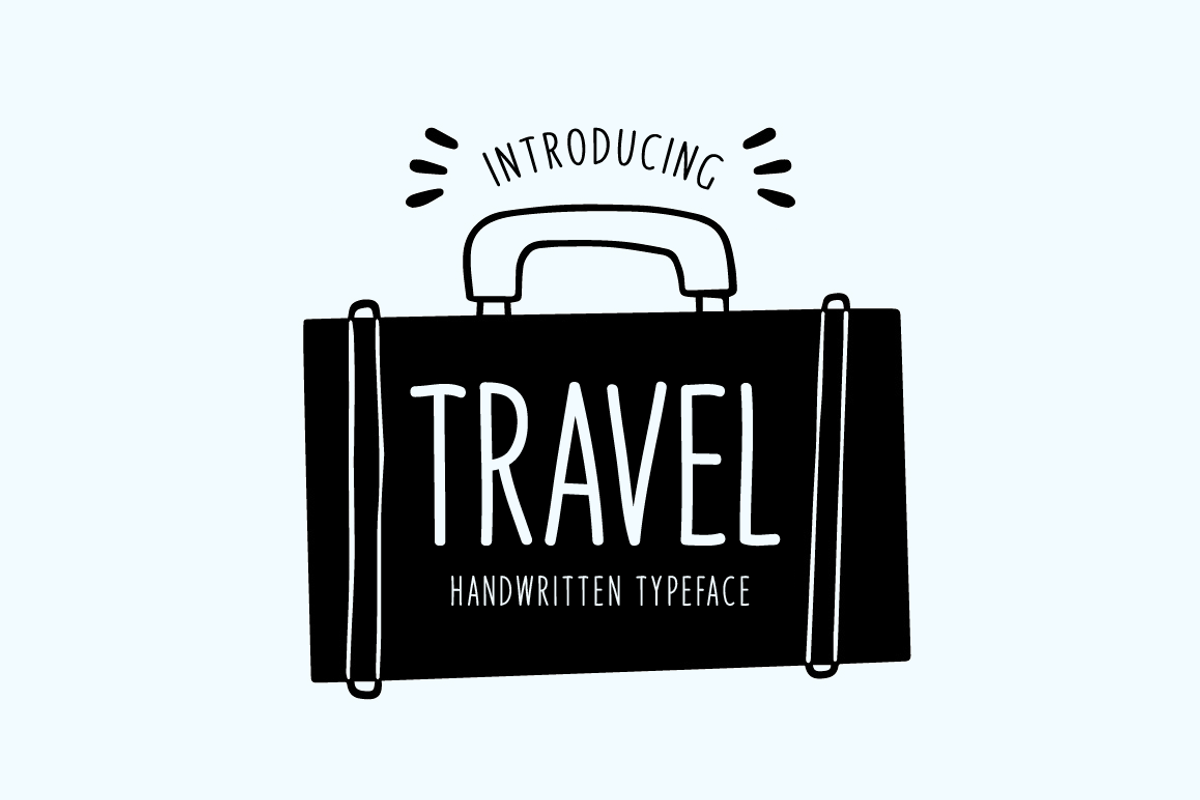
Travel Typeface Free Download is a dynamic, adventure-inspired font designed for all things exploration. With its bold, clean lines and modern feel, this font is perfect for travel blogs, adventure brands, outdoor signage, packaging, and vacation-themed designs.
Inspired by the spirit of wanderlust and the joy of discovering new places, Travel Typeface brings a fresh, energetic vibe to any project. Whether you're crafting a travel agency logo, designing a flight booking app, or creating promotional content for your next destination, this font is built for modern adventurers and travelers.
Its readability and versatile design make it perfect for both digital and print applications.